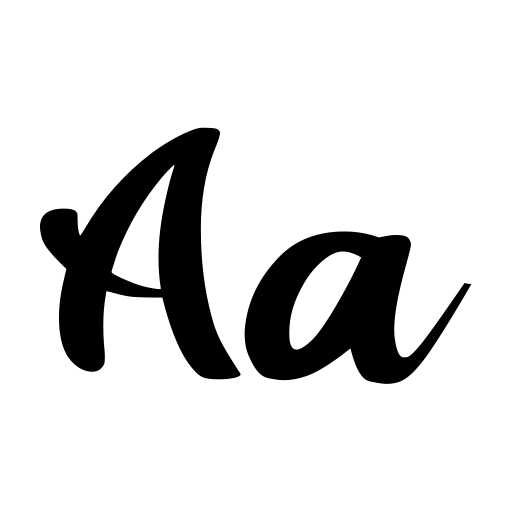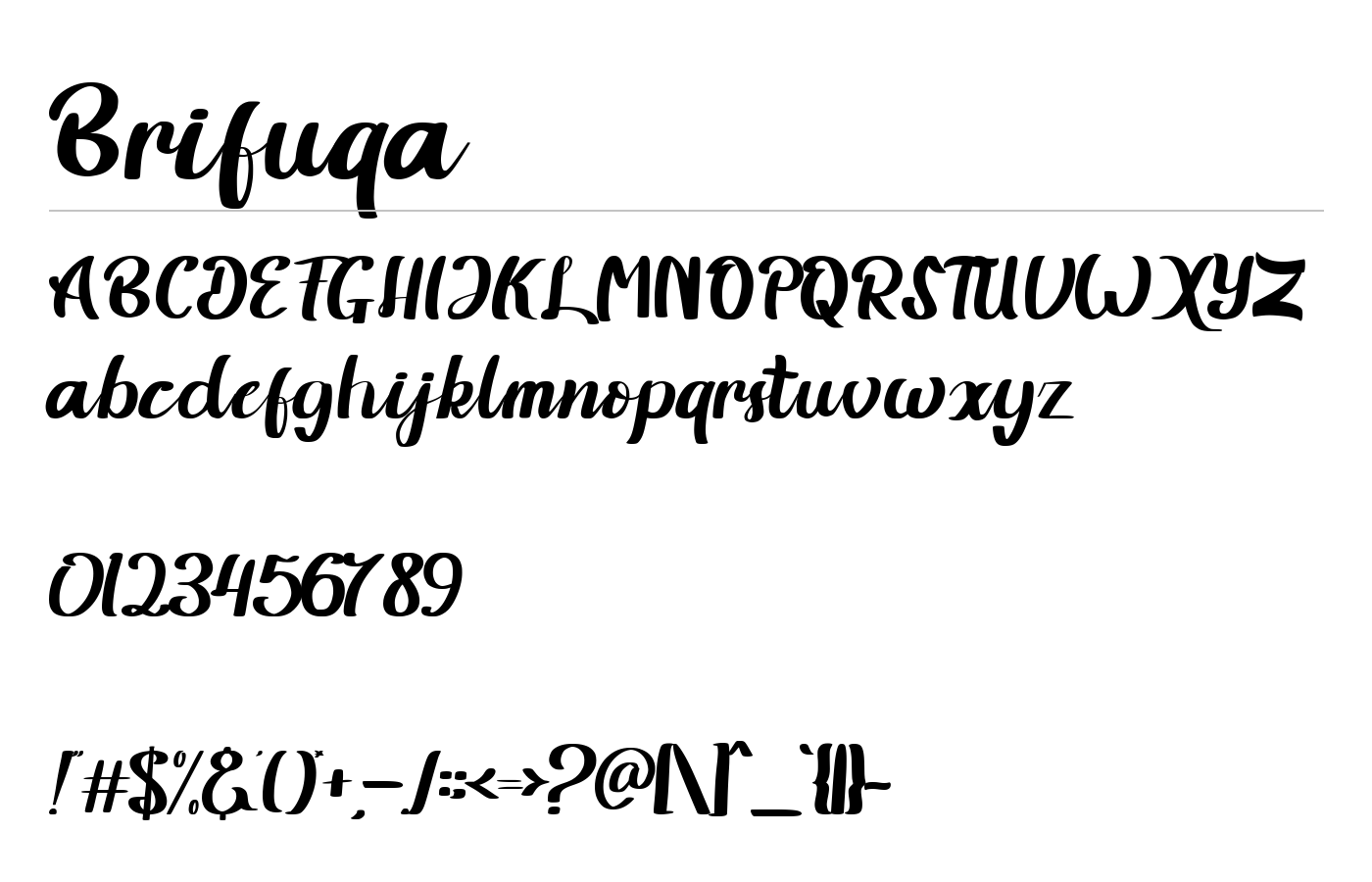
Brifuqa is a bold, script-style font that combines playful charm with a touch of elegance through its smooth, flowing strokes and moderately high contrast. Its rounded forms and creative letter shapes give it a lively personality, making it a great choice for eye-catching headlines, branding, and invitations that want to convey friendliness and creativity. Perfect for projects that need a warm, approachable feel with a stylish twist.
| Font family | Brifuqa Font |
| Designer | Stringlabs. 2020 |